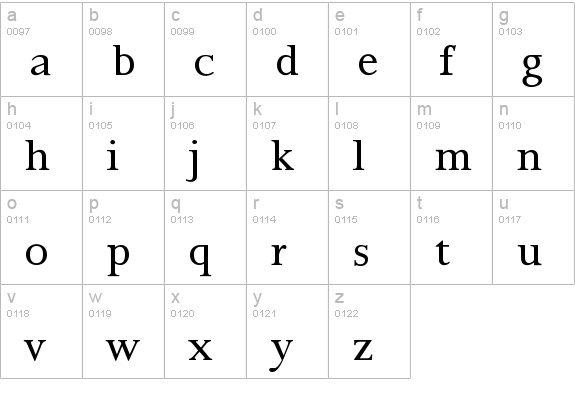
Palermo-Light is a refined, elegant variant in the Palermo typeface family \xE2\x80\x94 well suited to elegant body text, refined sub-headings, and luxury branding.
Introducing Palermo-Light, a captivating font that combines elegance and versatility. This font is the perfect choice for designers and creatives who aim to make a statement with their work. With its graceful curves and refined strokes, Palermo-Light captures attention and adds a touch of sophistication to any project. What makes Palermo-Light even more appealing is that it is free to download at FontsMarket.com. This means that you can access this remarkable font without any cost, allowing you to unleash your creativity without limitations. Whether you are designing a logo, creating a stunning website, or crafting eye-catching social media posts, Palermo-Light will elevate your designs to the next level. The carefully crafted characters of Palermo-Light exude a sense of modernity and elegance. Its clean lines and subtle details provide a polished look that will effortlessly enhance any typography project. From stylish headlines to elegant invitations, this font can adapt to various design styles and purposes. The versatility of Palermo-Light is further enhanced by its extensive character set. With multiple language support, you can confidently integrate this font into projects that require international appeal. Additionally, Palermo-Light offers a range of stylistic alternates and ligatures, giving you even more design possibilities. Downloading Palermo-Light from FontsMarket.com is a breeze, allowing you to quickly incorporate this font into your creative endeavors. Its high-quality design and freely available nature make it a must-have for any designer's toolkit. So, don't miss out on this exceptional font that effortlessly combines elegance and versatility – download Palermo-Light today and bring your designs to life.